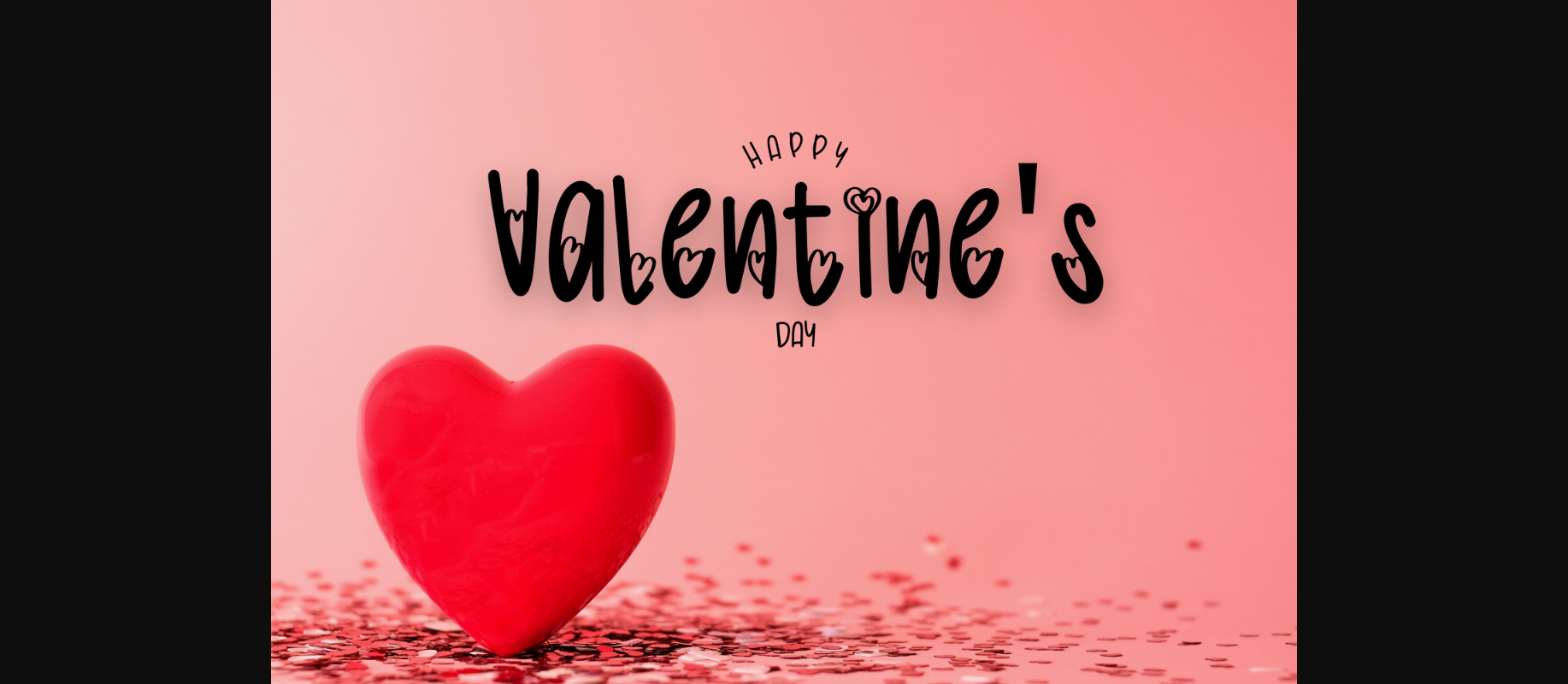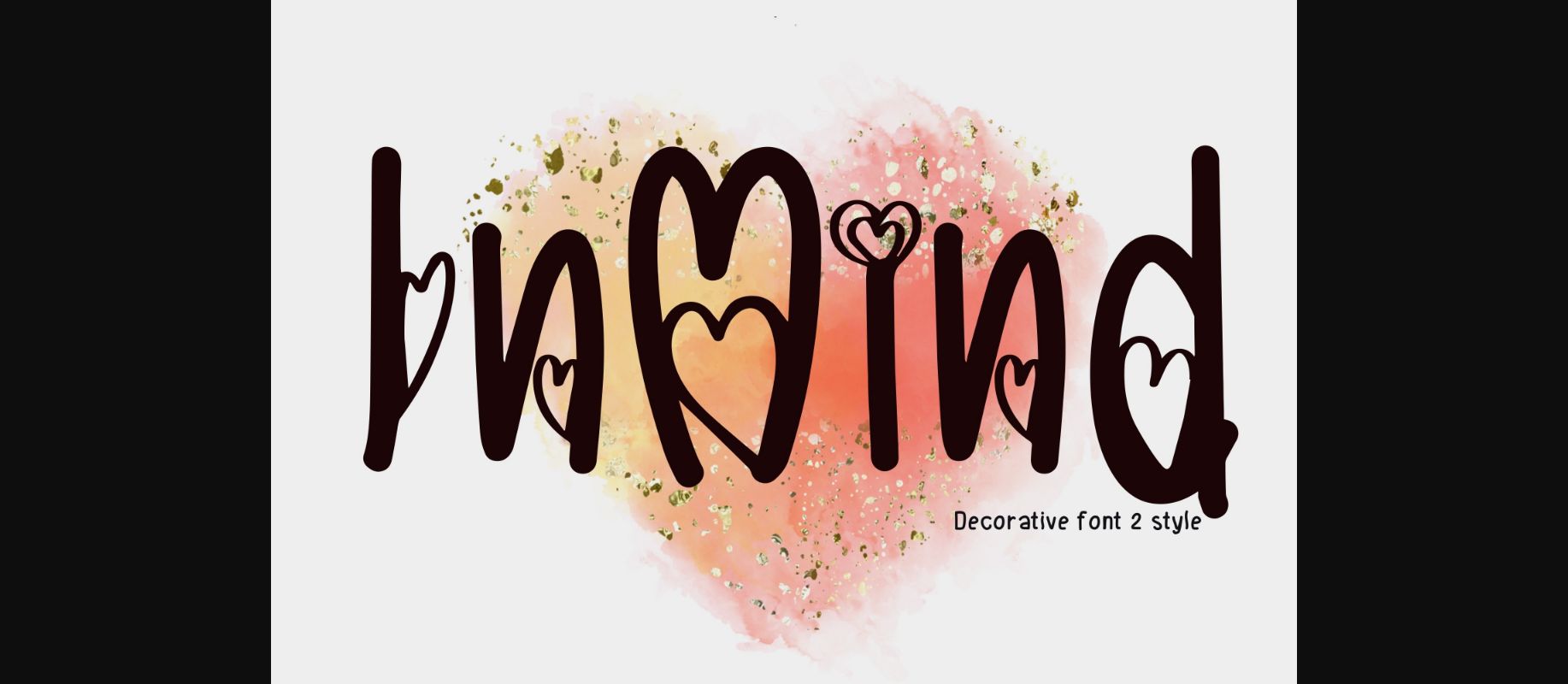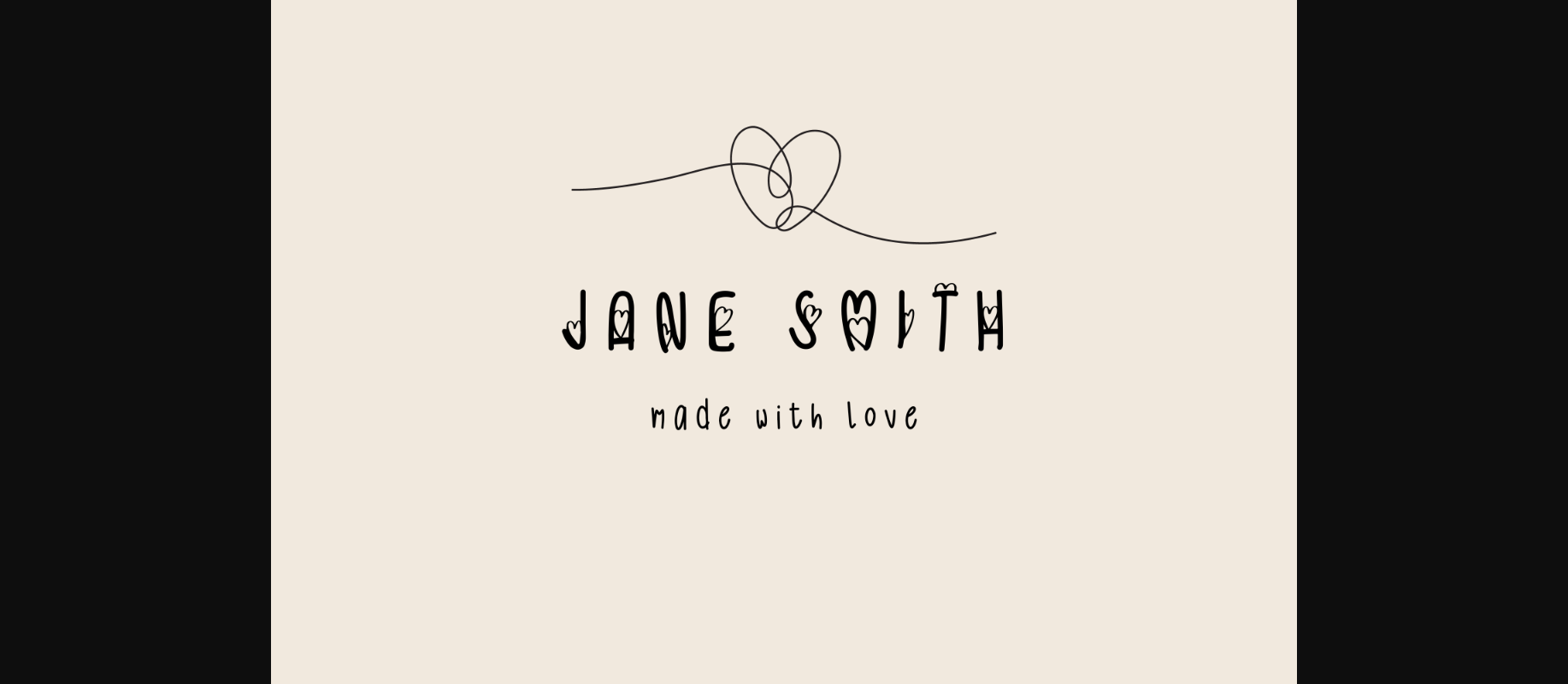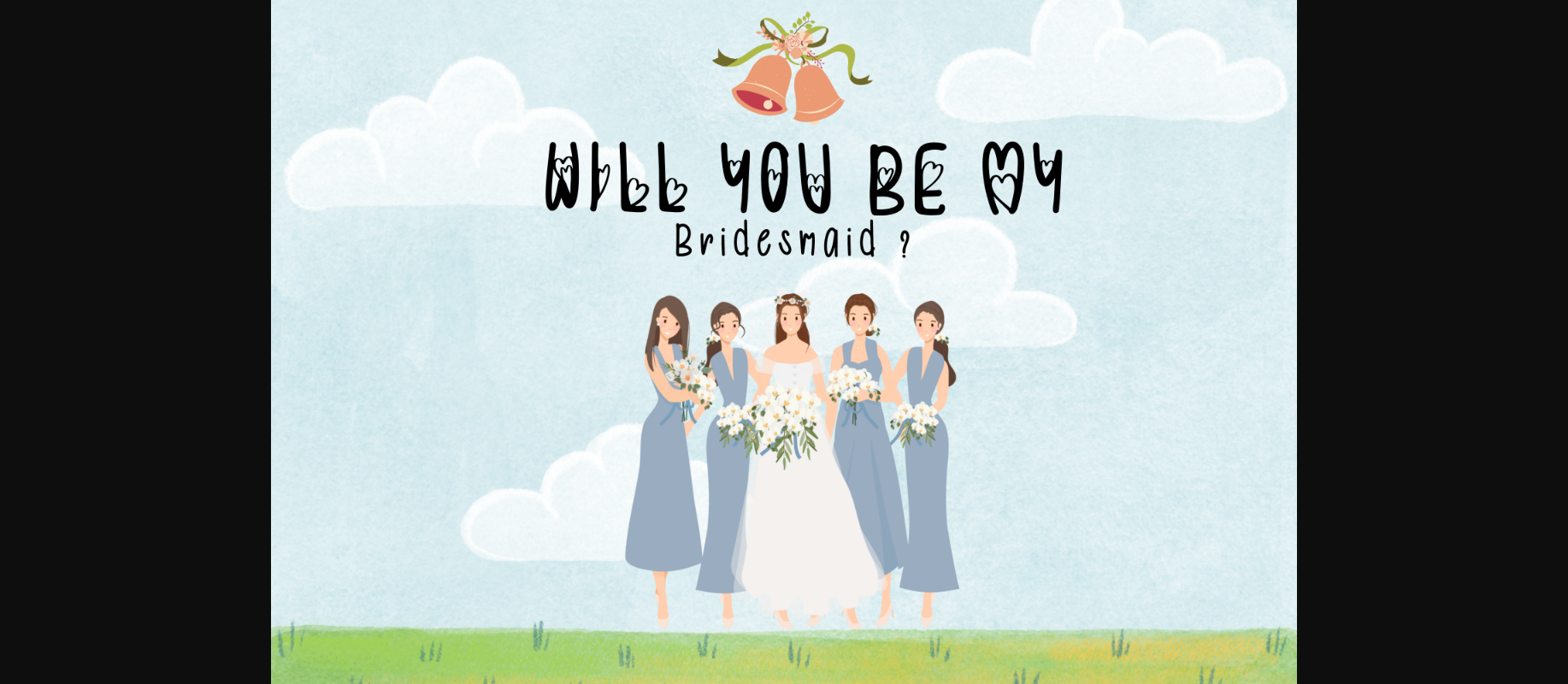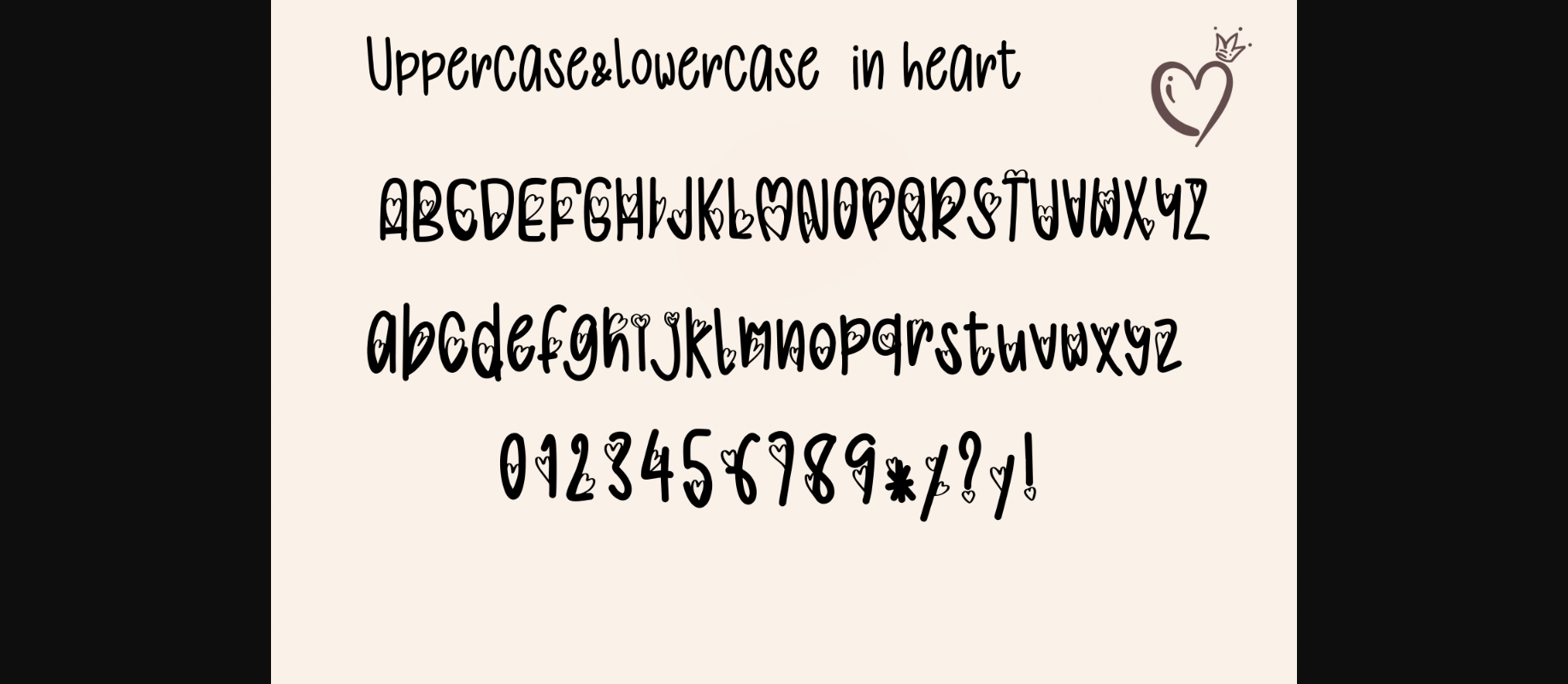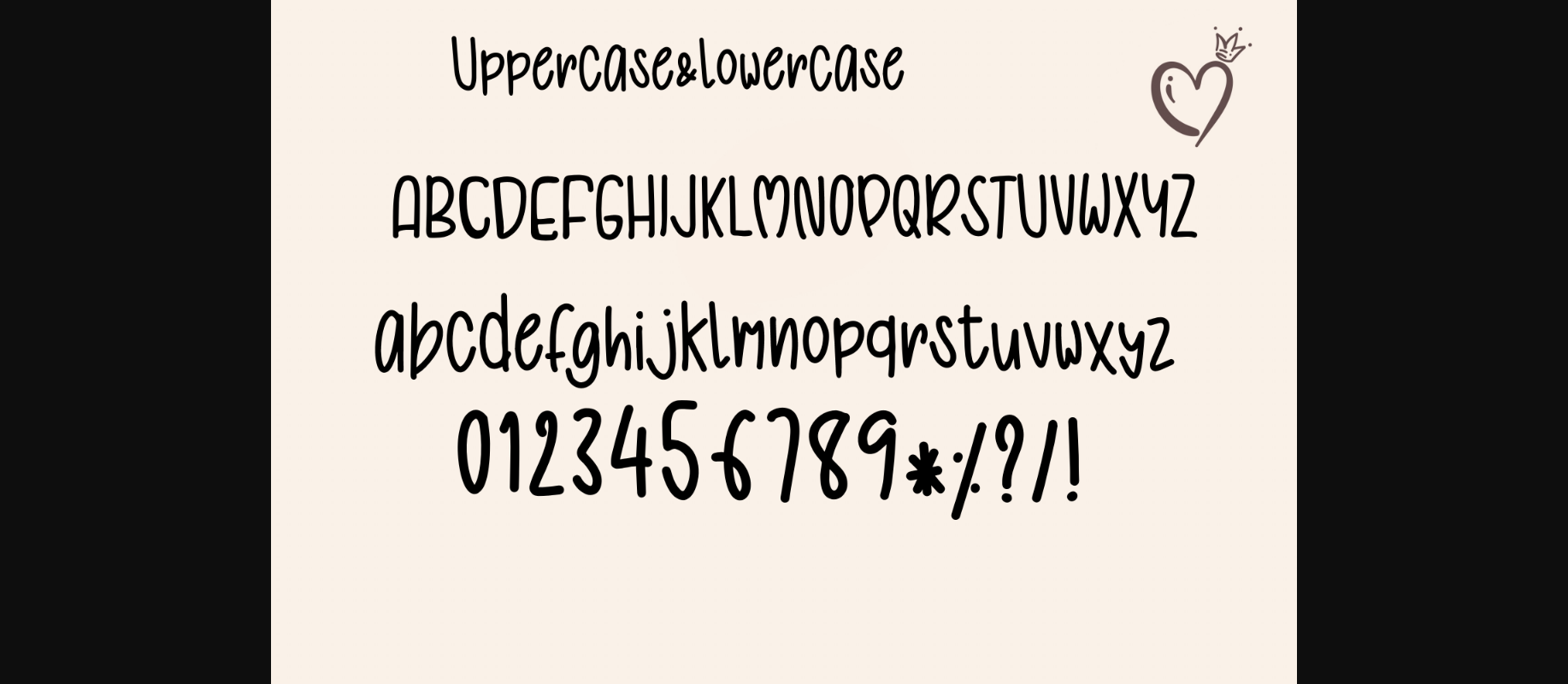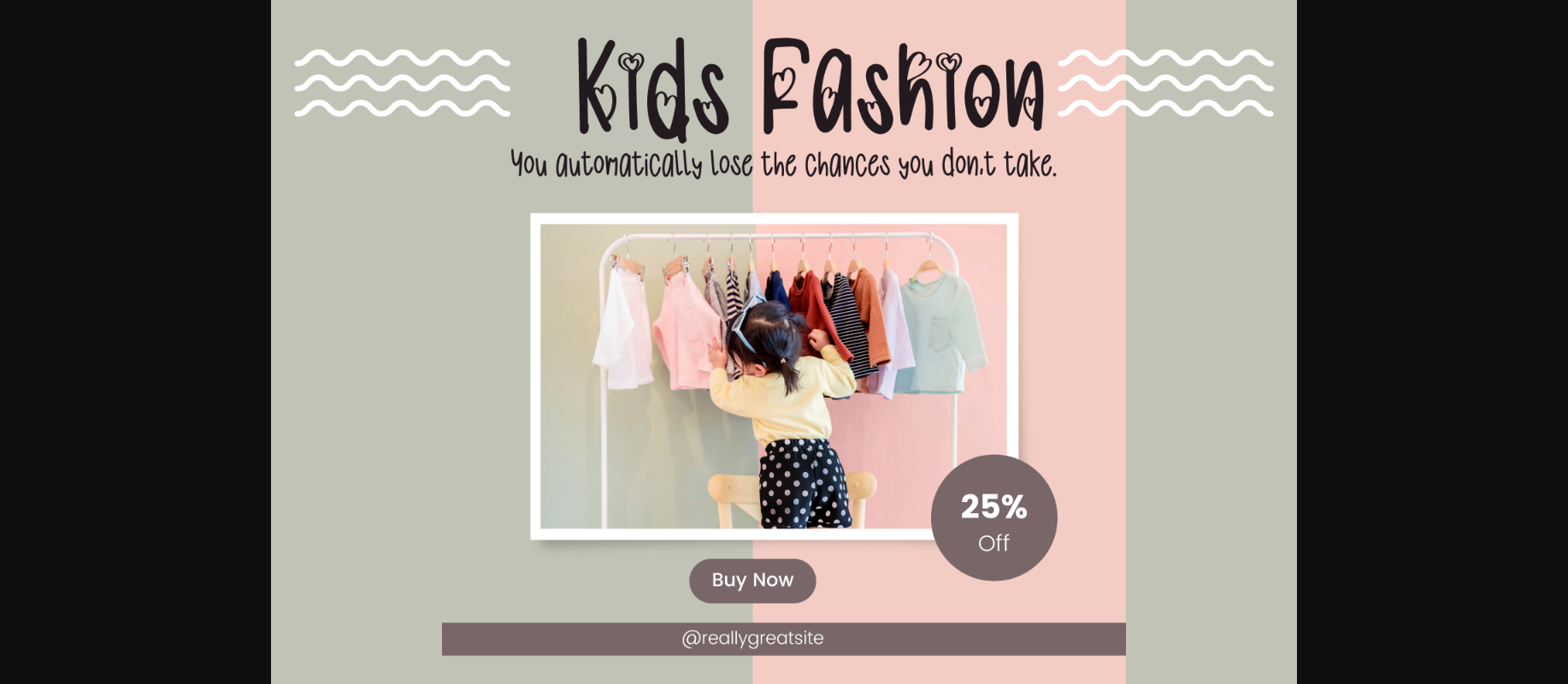
In Mind is a cute and lovely decorative font. It embodies playfulness and authenticity and is the perfect choice for decorations for weddings, parties, or any children’s activity projects.